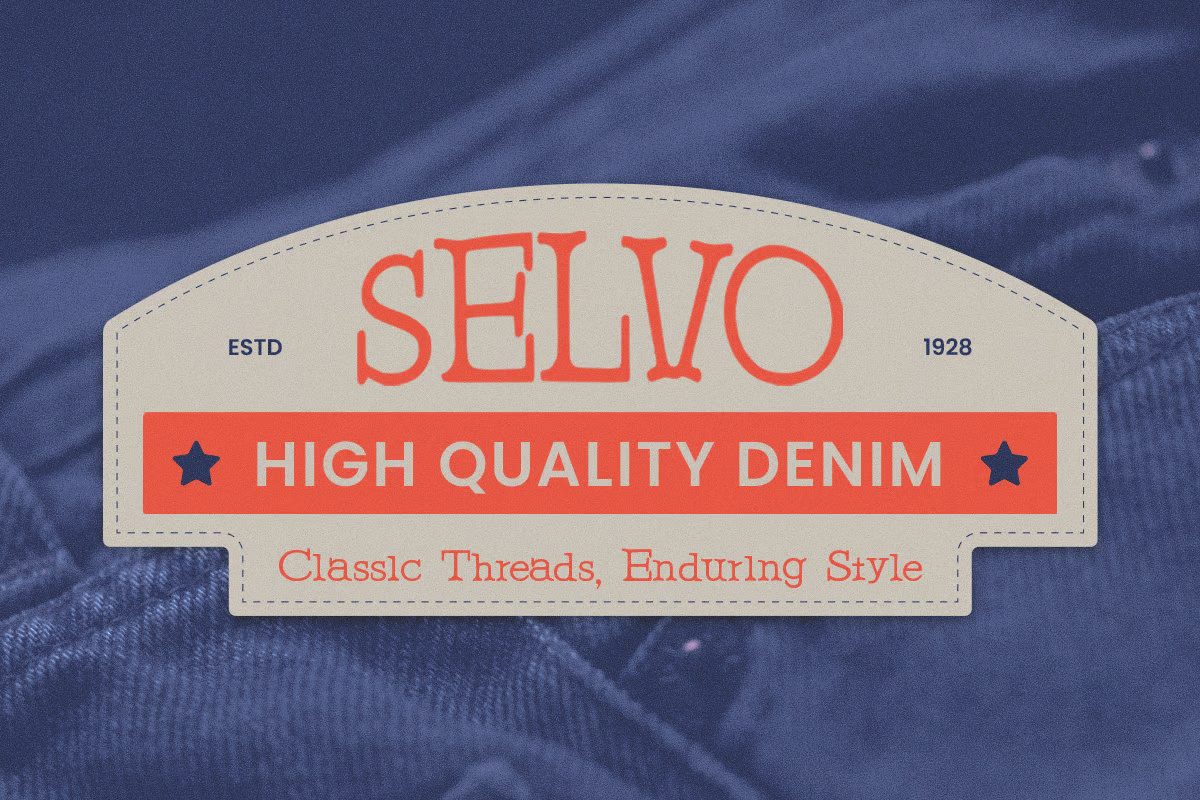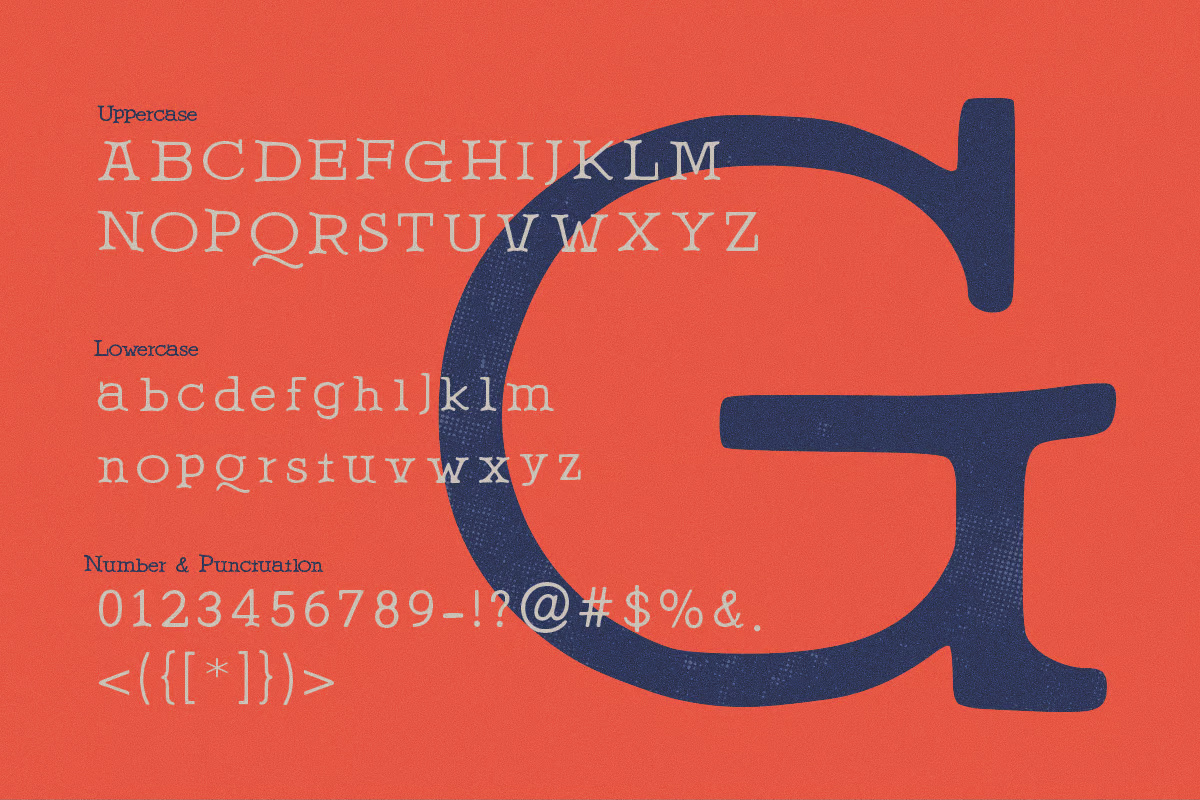
Westoria – Vintage Serif Logo Font
Westoria is a bold serif font with a vintage Western aesthetic, perfect for cowboy-inspired designs, rustic branding, classic signage, and bold typography. Its strong, well-defined letterforms evoke the rugged charm of the Old West, making it ideal for creating striking logos, vintage-style posters, product packaging, book covers, and apparel branding. The font’s elegant yet sturdy design ensures readability while maintaining a distinct character, adding an authentic touch to any project.